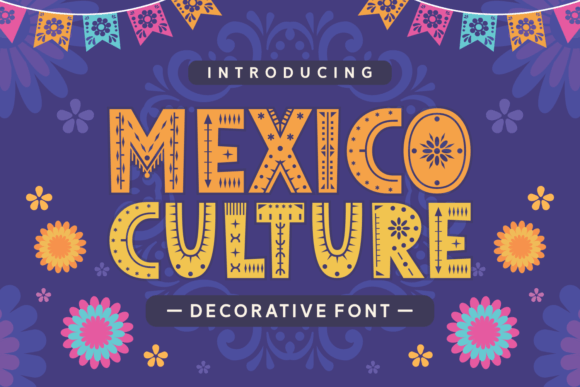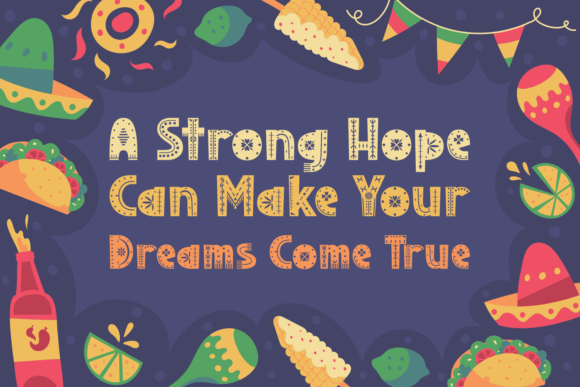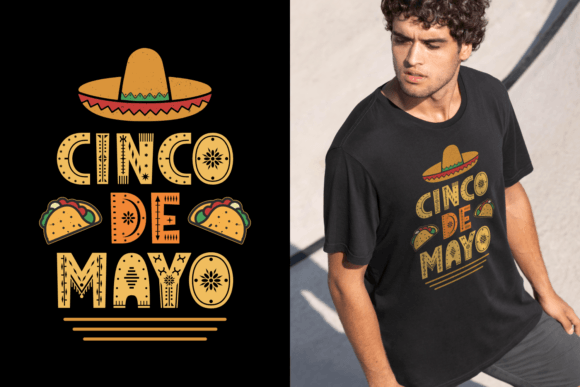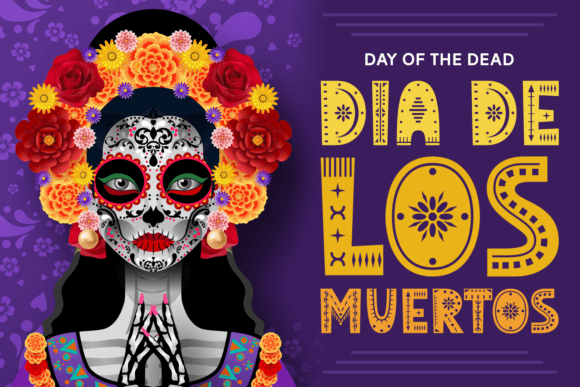
Mexico Culture Font
About the Mexico Culture Font
Get ready to be inspired by Mexico Culture Font, a fresh and dynamic typeface for modern creators. Infuse a thunderbolt of vibrant Mexican enthusiasm into your creations with the Mexico Culture font, a tribute to the lively Cinco De Mayo festivities. This charismatic typeface is intricately molded to reflect the radiant zest inherent in Mexico’s Fiesta celebrations. As the embodiment of spirited Mexican aesthetic elements, the Mexico Culture font adds an unmistakable sprinkle of festive flair to your creative ventures, igniting a ripple of cultural fascination.
This font’s bold, playful personality makes it ideal for headlines, posters, and short-form branding applications where its vibrant energy can shine. It would be particularly effective for projects related to food, festivals, or tourism, conveying a sense of fun and cultural richness. However, its highly decorative nature makes it unsuitable for body text or UI elements requiring high readability.
Consider pairing Mexico Culture with a clean sans-serif like Open Sans for body copy to create contrast and balance. For a more sophisticated feel, a classic serif like Garamond could provide elegant counterpoint. Alternatively, a simple geometric sans-serif would offer a modern, streamlined pairing, letting the font’s character stand out.
Its strong, celebratory style is less appropriate for projects requiring a serious or minimalist approach. Avoid using it for applications where clarity and legibility are paramount, such as long-form documents or website navigation.
Mexico Culture Font Usage Examples
Mexico Culture Font Example